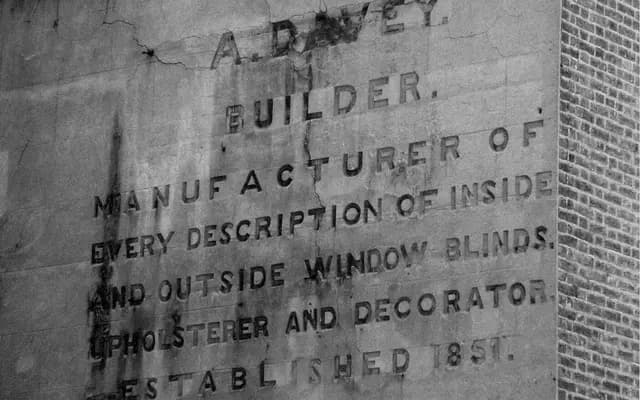
Rework
Sociotype · 2021
Rework specimen from Sociotype
A 48-style sans serif workhorse across four optical sizes including a Micro family, drawing on Greco-Roman inscription, 19th century architectural lettering, copperplate engraving and Stephenson Blake grotesques.
A sans serif superfamily of 48 styles across four optical sizes, including a Micro cut for the smallest screen sizes. Rework collects influences from across the history of the geometric sans, with stately Greco-Roman square proportions sitting alongside the idiosyncrasies of 19th century commercial lettering, William Caslon IV's Two Lines English Egyptian, copperplate engraved type, phototypeset gothics such as Sackers Gothic, and Stephenson Blake's grotesques. The result reads as part man, part machine, with industrial and humanistic qualities held in tension and a pre-digital sense of physicality. The Micro family is engineered for legibility at small sizes, while the Headline and Display cuts release more expressive detail.
A historical hybrid sans serif superfamily, descended from a robust geometric model that runs from ancient Greek stone inscription through 19th century architectural lettering, William Caslon IV's Two Lines English Egyptian, copperplate engraving, Stephenson Blake's Grotesques and 20th century phototypesetting.